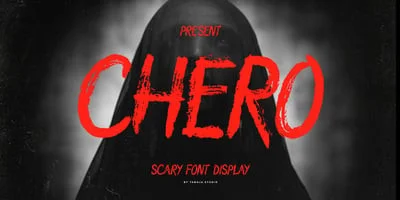
Chero Scary Brush Display Font
Chero Scary Brush Display Font is perfect for horror movie posters, Halloween event promotions, spooky theme park signage, thriller book covers, haunted house marketing, gothic fashion branding, scary game interfaces, dark entertainment venues, macabre art projects, and spine-chilling advertising campaigns.
What makes Chero Scary Brush Display Font exciting is its terrifying authenticity that perfectly captures the bone-chilling atmosphere and psychological terror of classic horror storytelling and supernatural experiences. This typeface features dramatic brush-stroke letterforms with jagged edges and frightening details that instantly evoke feelings of dread, suspense, and spine-tingling fear. The font's menacing personality and horror authenticity make it ideal for entertainment brands seeking to create genuine fear, atmospheric tension, and the heart-pounding excitement that comes from masterfully crafted scary experiences.
Chero Scary Brush Display Font family includes various horrifying alternatives and terrifying elements that enhance its scary character while providing design flexibility for horror and entertainment applications. The font features blood-splatter effects, ghostly ligatures, and nightmare-inspired character variations that create authentic haunted atmosphere for horror and supernatural branding.
Horror entertainment companies and spooky event organizers consistently select Chero Scary Brush Display Font for projects requiring authentic terror appeal and spine-chilling credibility. The font's frightening character excels in applications targeting horror enthusiasts, thrill-seekers, and brave souls who crave genuine scary experiences and supernatural entertainment. Whether you're designing for horror films, haunted attractions, or scary entertainment venues, this terrifying typeface delivers the authentic horror atmosphere and bone-chilling fear that resonates with audiences seeking genuine terror and the adrenaline rush that comes from perfectly executed scary experiences.